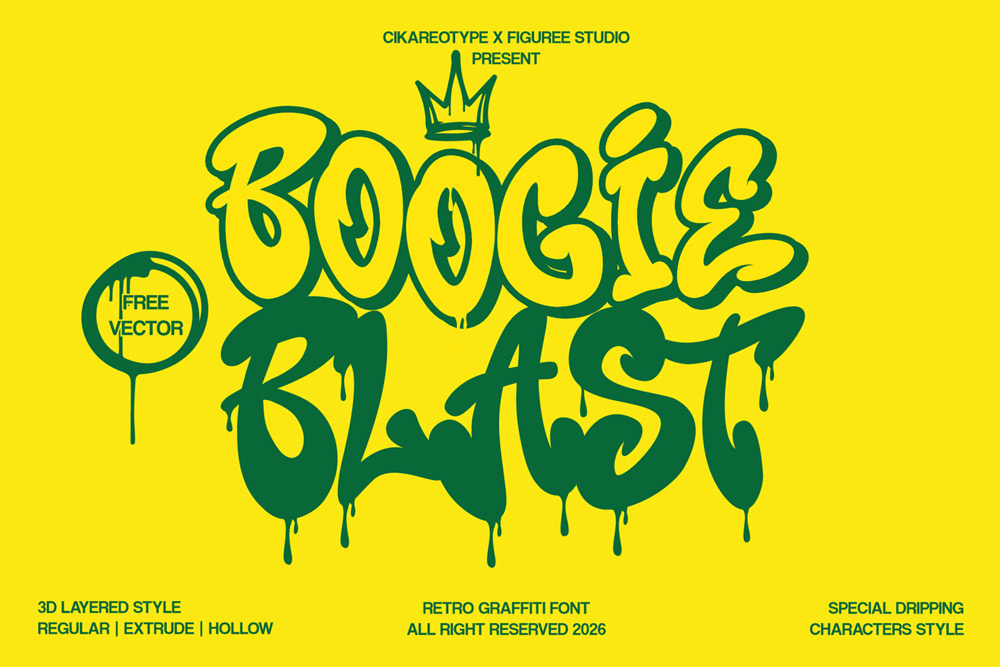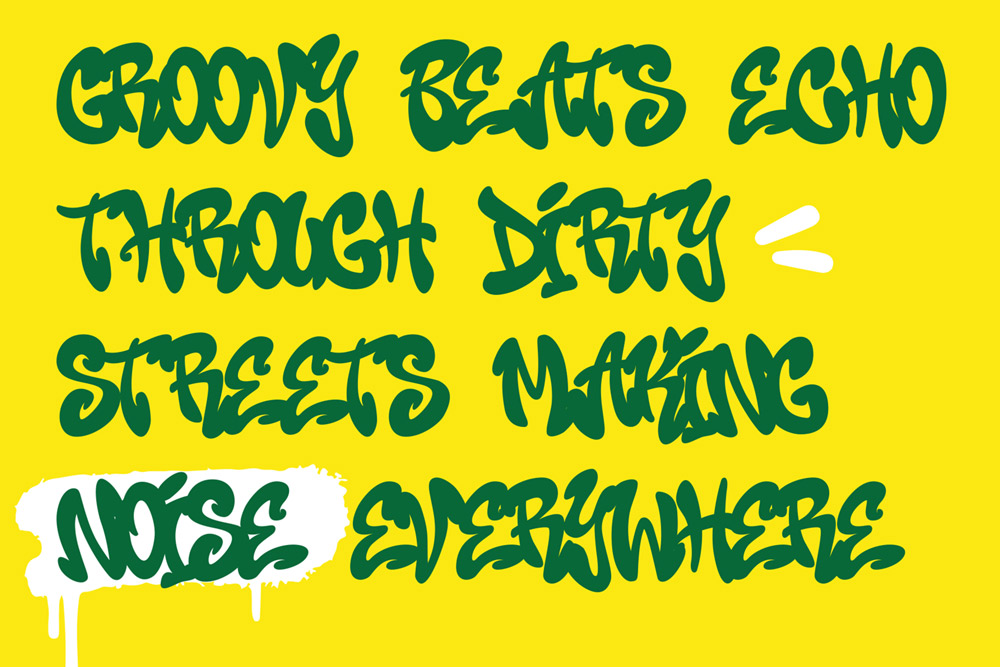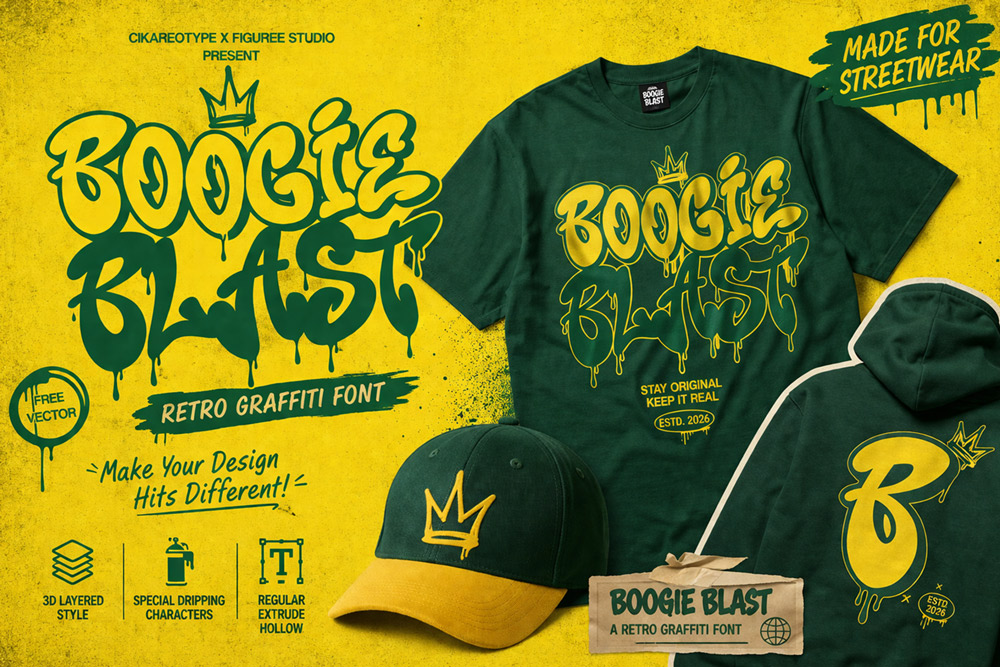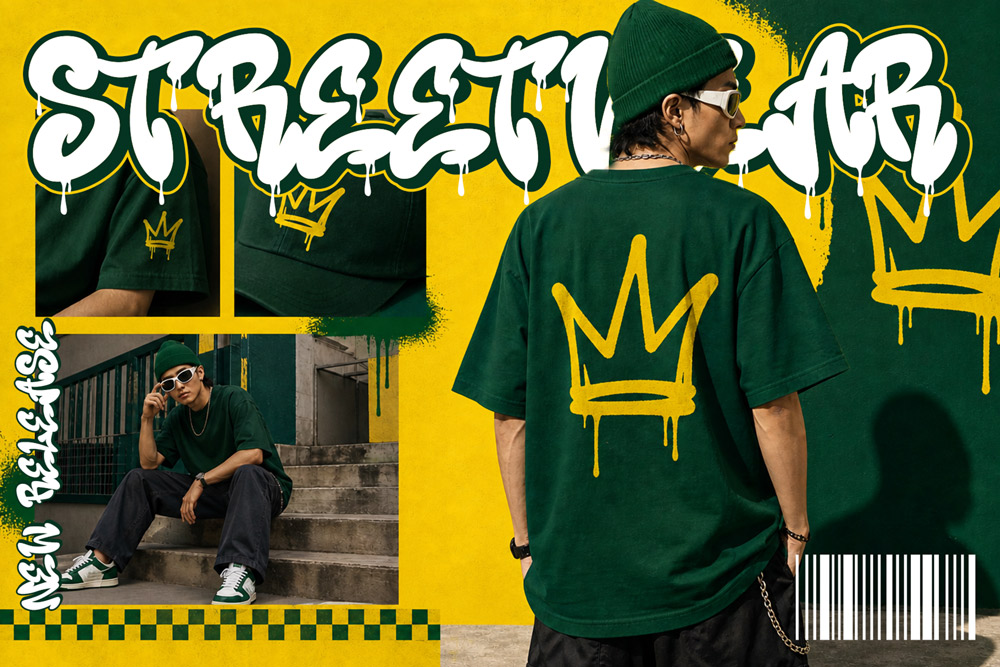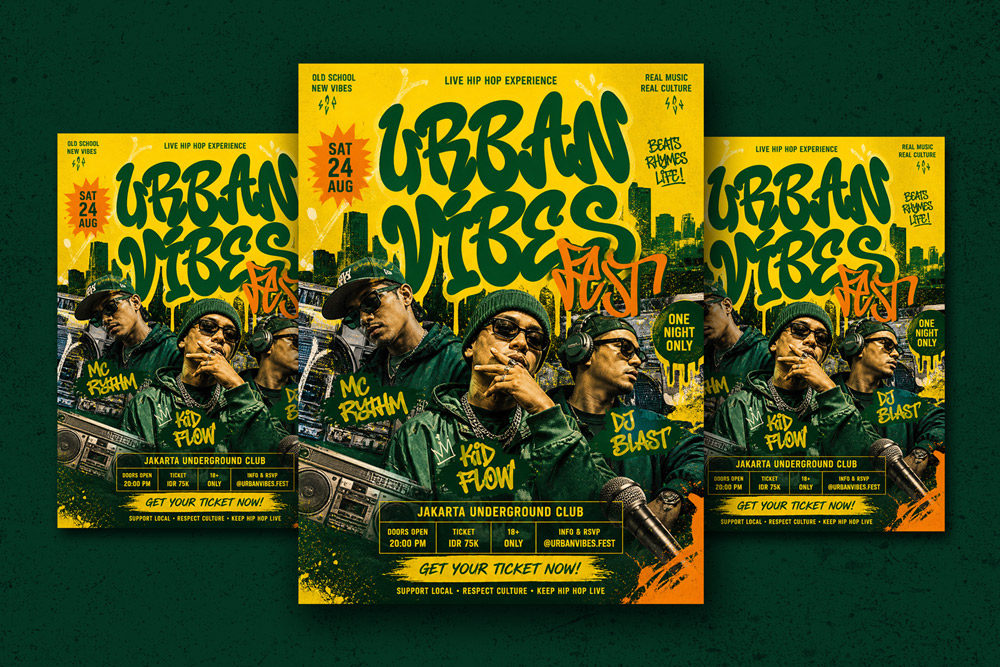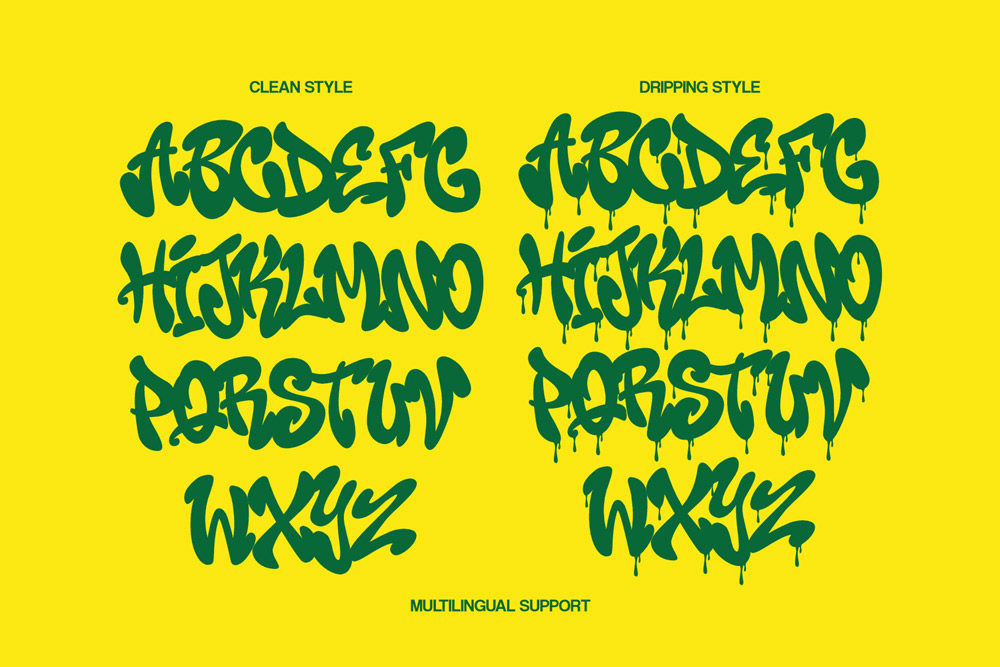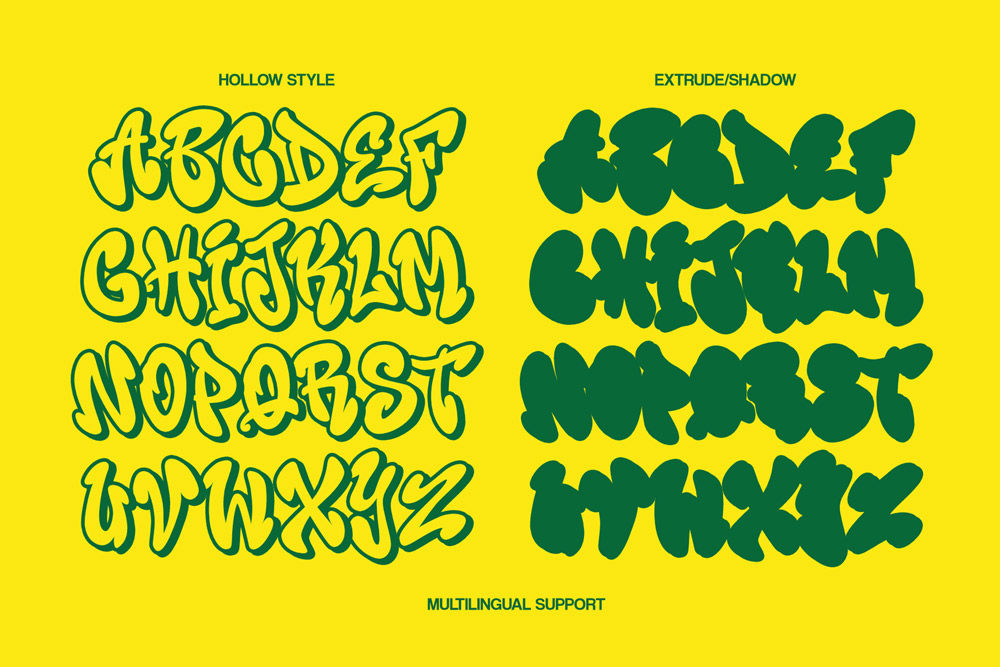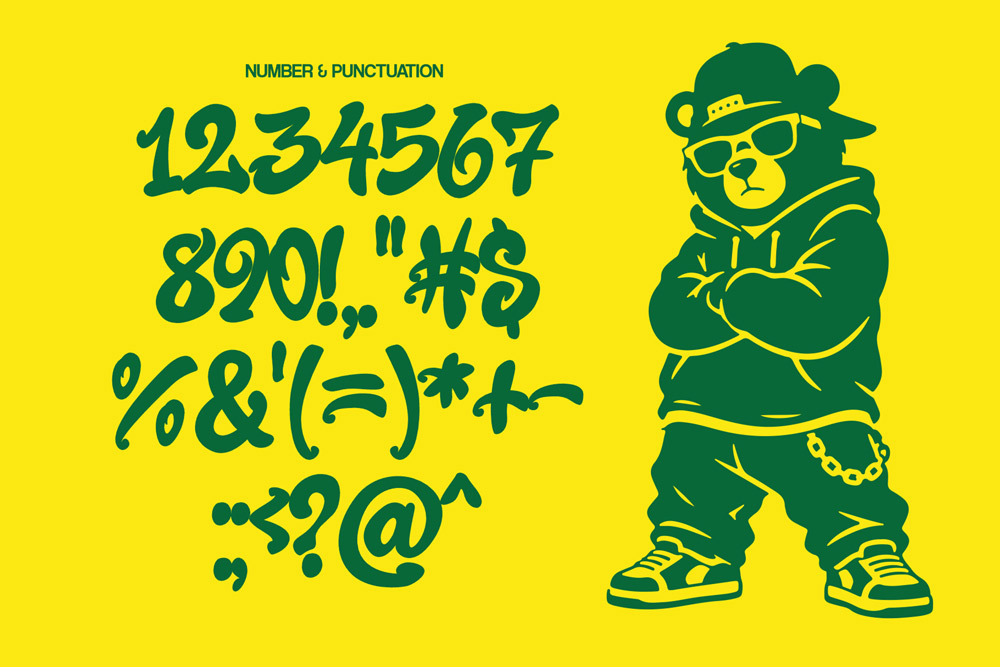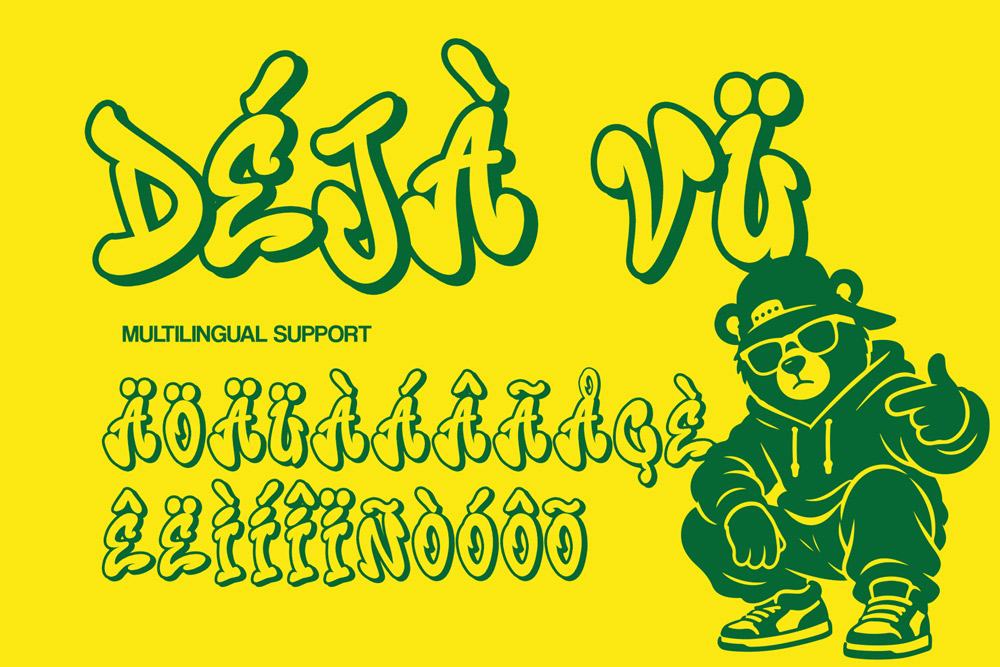
About Boogie Blast
Boogie Blast – 3D Groovy Retro Graffiti Drip Font
Boogie Blast is a vibrant and energetic graffiti font that blends retro groovy vibes with bold 3D urban aesthetics. Designed to bring movement, depth, and personality into your typography, this 3D graffiti font transforms ordinary text into eye-catching visual statements. Whether you’re working on streetwear branding, posters, album covers, or social media graphics, Boogie Blast graffiti font delivers a powerful and playful urban identity.
This retro graffiti font combines the fun curves of groovy typography with dripping street style, making it a unique urban graffiti font that stands out in modern design trends. If you want a graffiti display font that feels both nostalgic and fresh, Boogie Blast is the perfect choice.
A 3D Graffiti Font with Groovy Retro Energy
Boogie Blast graffiti font is built with bold shapes and smooth curves that reflect classic retro design influences. This 3D graffiti font adds depth through layered and extruded styles, giving your typography a strong dimensional effect.
The groovy style in this graffiti font creates a sense of rhythm and movement, while the dripping elements add an authentic street feel. This combination makes Boogie Blast a highly versatile dripping graffiti font that works for both fun and edgy design projects.
Retro Meets Urban Street Style
Boogie Blast graffiti font merges retro aesthetics with modern graffiti techniques. This urban graffiti font captures the playful essence of vintage typography while maintaining the bold energy of street culture.
The result is a graffiti display font that feels unique and dynamic. Its rounded shapes and 3D depth make it perfect for designers who want to create standout visuals with a nostalgic twist. This retro graffiti font is ideal for projects that require both personality and impact.
Complete Character Set & Typography Features
Boogie Blast – 3D Groovy Retro Graffiti Drip Font includes a full set of features to support professional design work.
Uppercase Characters
Bold and expressive uppercase letters designed with a strong graffiti font style for maximum visual impact.
Multilingual Support
Supports multiple languages, making this graffiti font suitable for global branding and international audiences.
Numbers & Punctuation
Includes a complete set of numbers and punctuation for flexible typography using this urban graffiti font.
This graffiti font package includes a complete set of layered and stylistic variations:
- Unique 3D graffiti font design with retro influence
- Groovy and playful letterforms
- Dripping style for added urban character
- Extrude and hollow styles for depth variation
- High readability for display typography
- Perfect for streetwear and retro branding
Why Designers Love Boogie Blast
Designers love Boogie Blast graffiti font because it offers a rare combination of retro style and urban edge. This 3D graffiti font allows creators to build visually rich typography without complicated editing.
The multiple styles included in this graffiti font bundle give designers complete creative control. From clean regular letters to dripping and extruded effects, Boogie Blast provides endless possibilities for customization.
Another reason designers choose this urban graffiti font is its versatility. It works equally well for playful branding and bold street visuals. The groovy shapes make it unique, while the 3D depth ensures strong visual impact.
Perfect For Creative Projects
Boogie Blast graffiti font is ideal for:
- Streetwear branding
- Retro-style posters and flyers
- Music album covers
- Social media graphics
- Logo design with groovy urban style
- Merchandise and apparel
If you’re looking for a 3D graffiti font with retro personality and dripping energy, Boogie Blast is the perfect choice.
Pairing Boogie Blast graffiti font with a raw dripping style creates a powerful contrast between groovy retro shapes and aggressive street textures, resulting in a dynamic graffiti font combination.
If you want a graffiti font that combines retro charm, urban attitude, and 3D power, Boogie Blast is your ultimate choice. Elevate your designs, express your creativity, and make every project unforgettable with a groovy graffiti font that stands out.